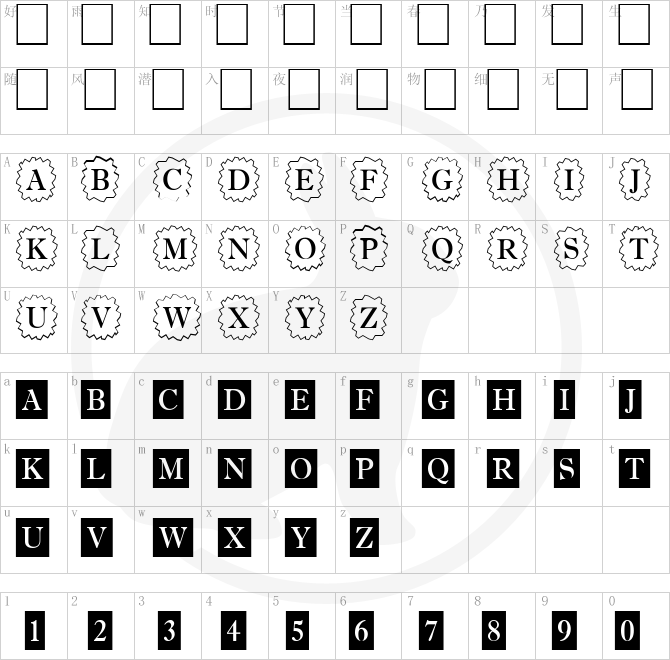
a_AntiqueTrdCmDc3Cb.ttf is a very beautiful artistic font, a_AntiqueTrdCmDc3Cb.ttf is widely used in the design and printing of various books and pictures,a_AntiqueTrdCmDc3Cb.ttf has a strong visual impact,a_AntiqueTrdCmDc3Cb.ttf is a commonly used font in newspapers, magazines and books, and is used in posters, e-commerce Poster design, store design, logo design, font design and other fields.a_AntiqueTrdCmDc3Cb.